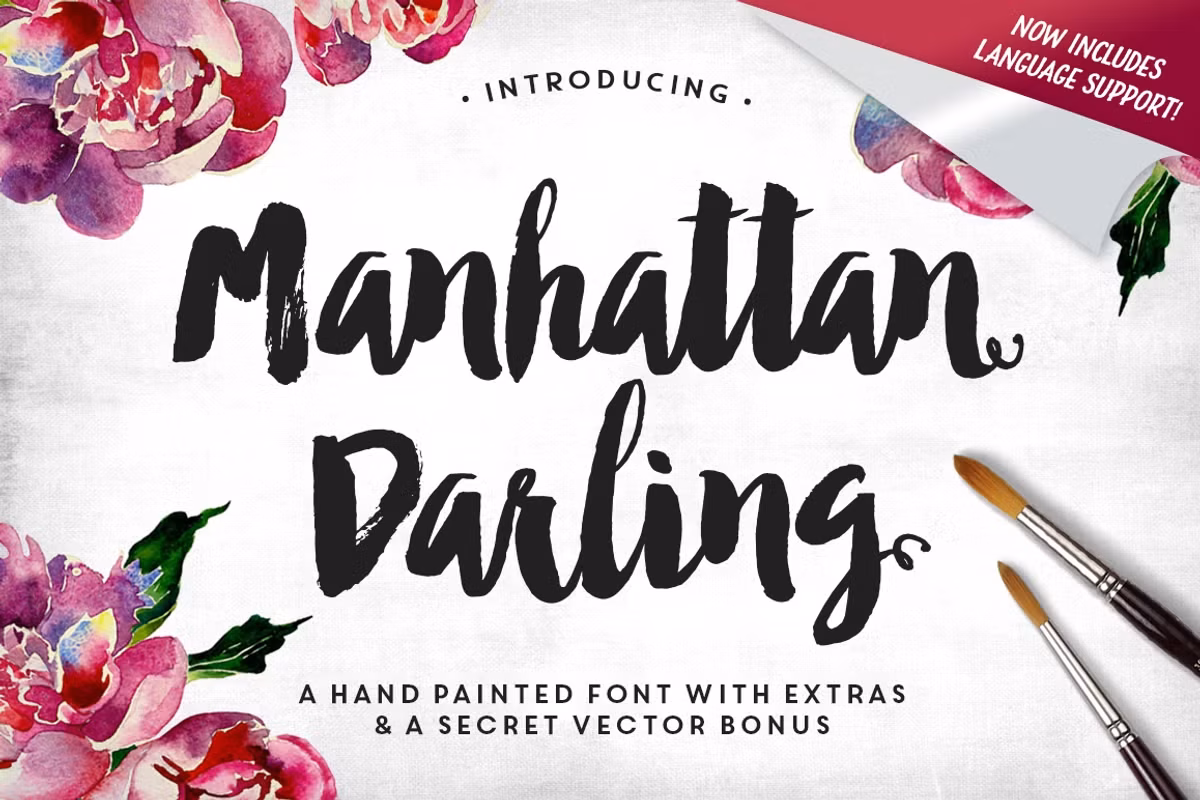
Manhattan Darling Typeface + BONUS Free Download
Bring retro charm and modern flair together with Manhattan Darling Typeface Free Download — a stylish and elegant typeface inspired by vintage New York glamour. With bold curves, subtle serif touches, and a feminine edge, this font is perfect for boutique branding, cocktail bar menus, posters, packaging, and editorial designs that need a touch of old-school cool.
Manhattan Darling captures the spirit of handwritten headlines from the golden age, yet keeps things fresh and relevant for today’s design scene. It includes uppercase and lowercase characters, punctuation, numerals, and multilingual support for complete creative freedom.